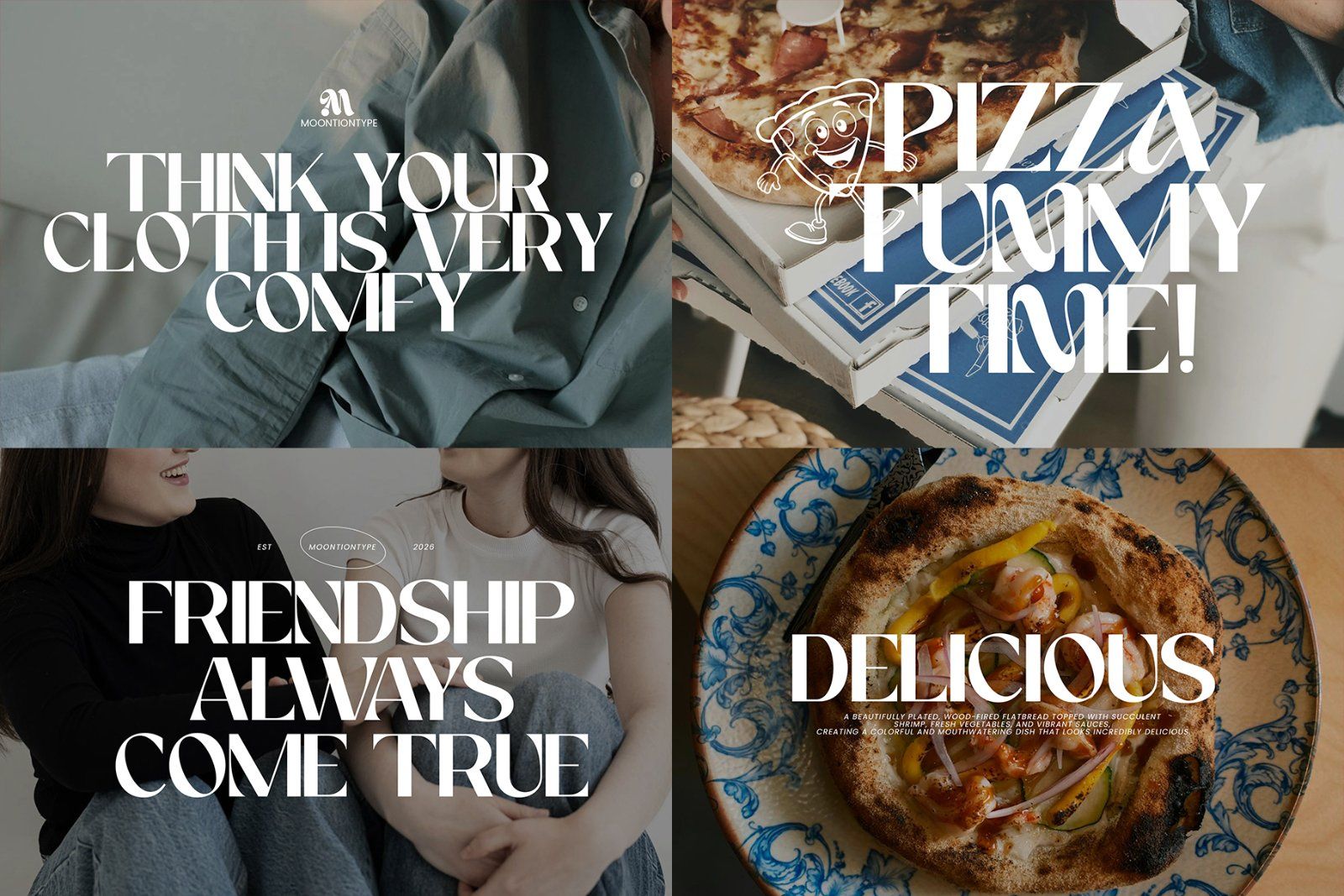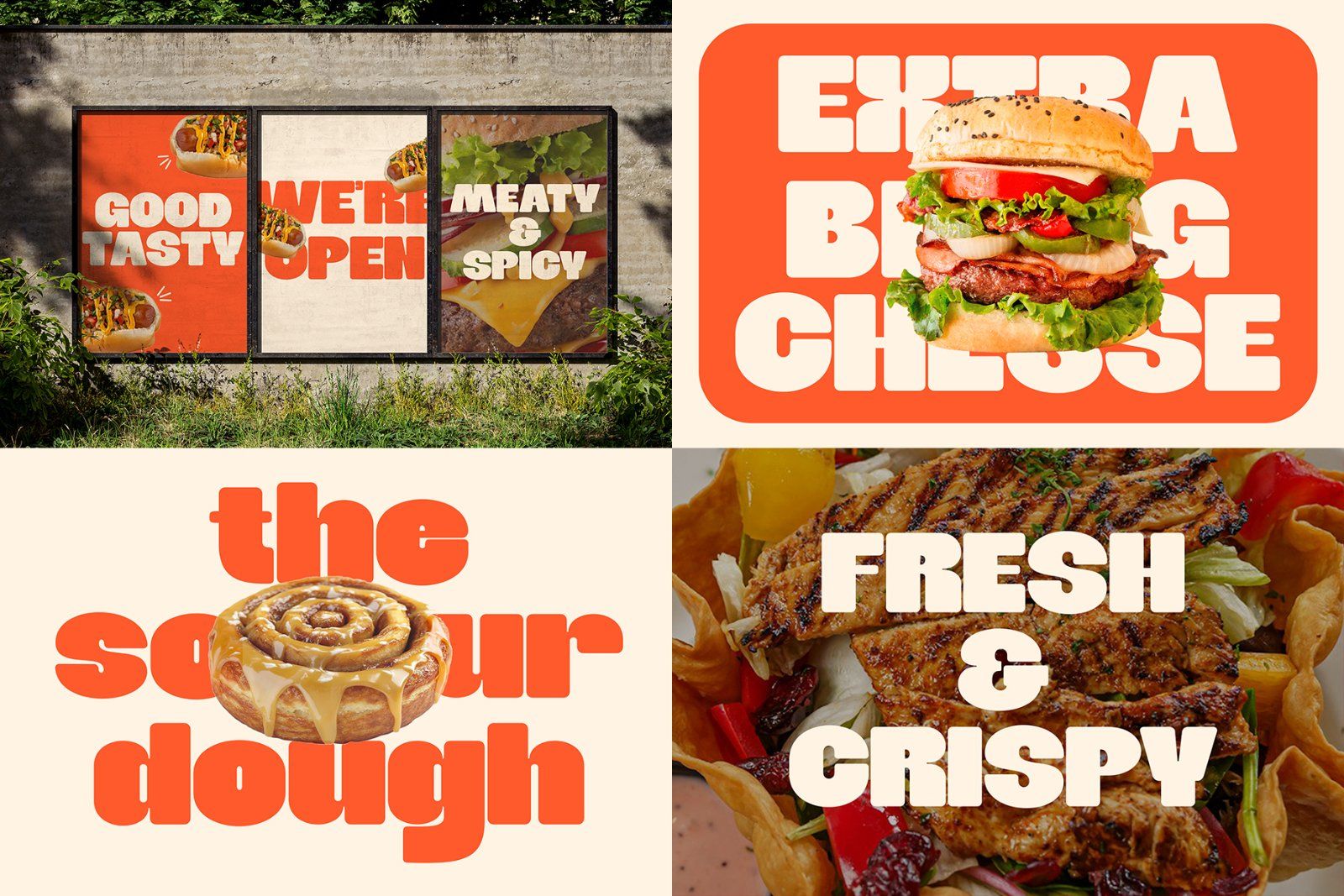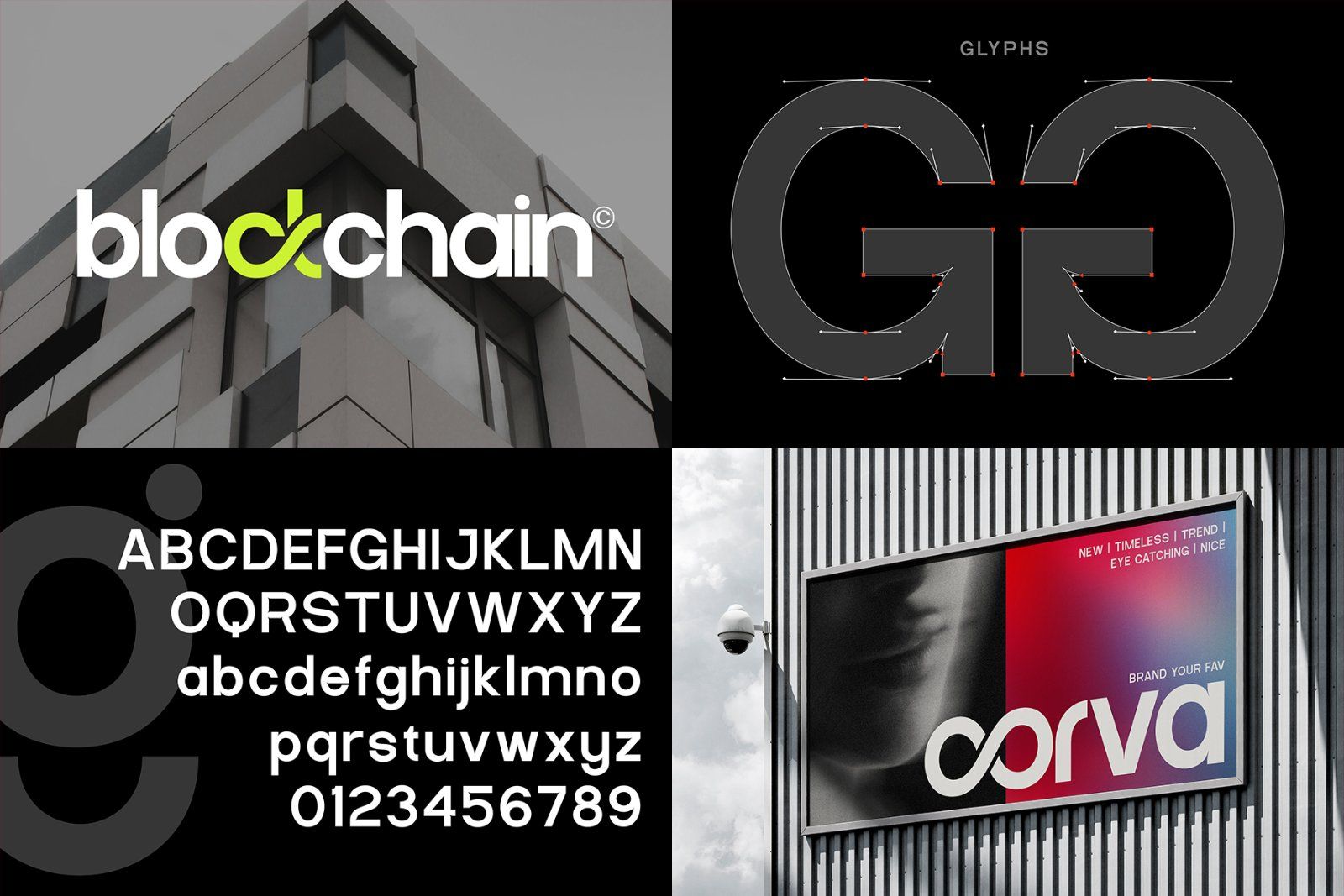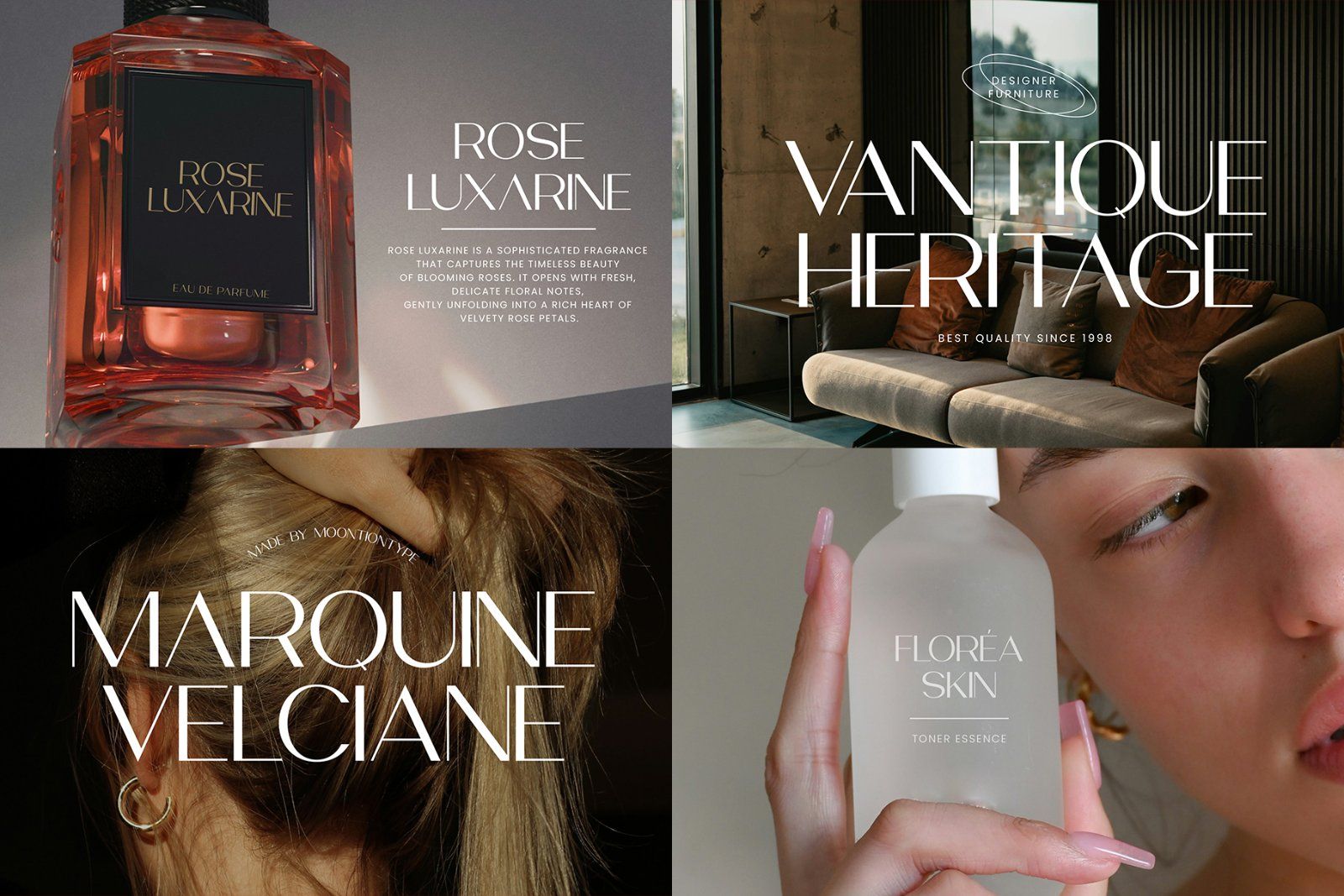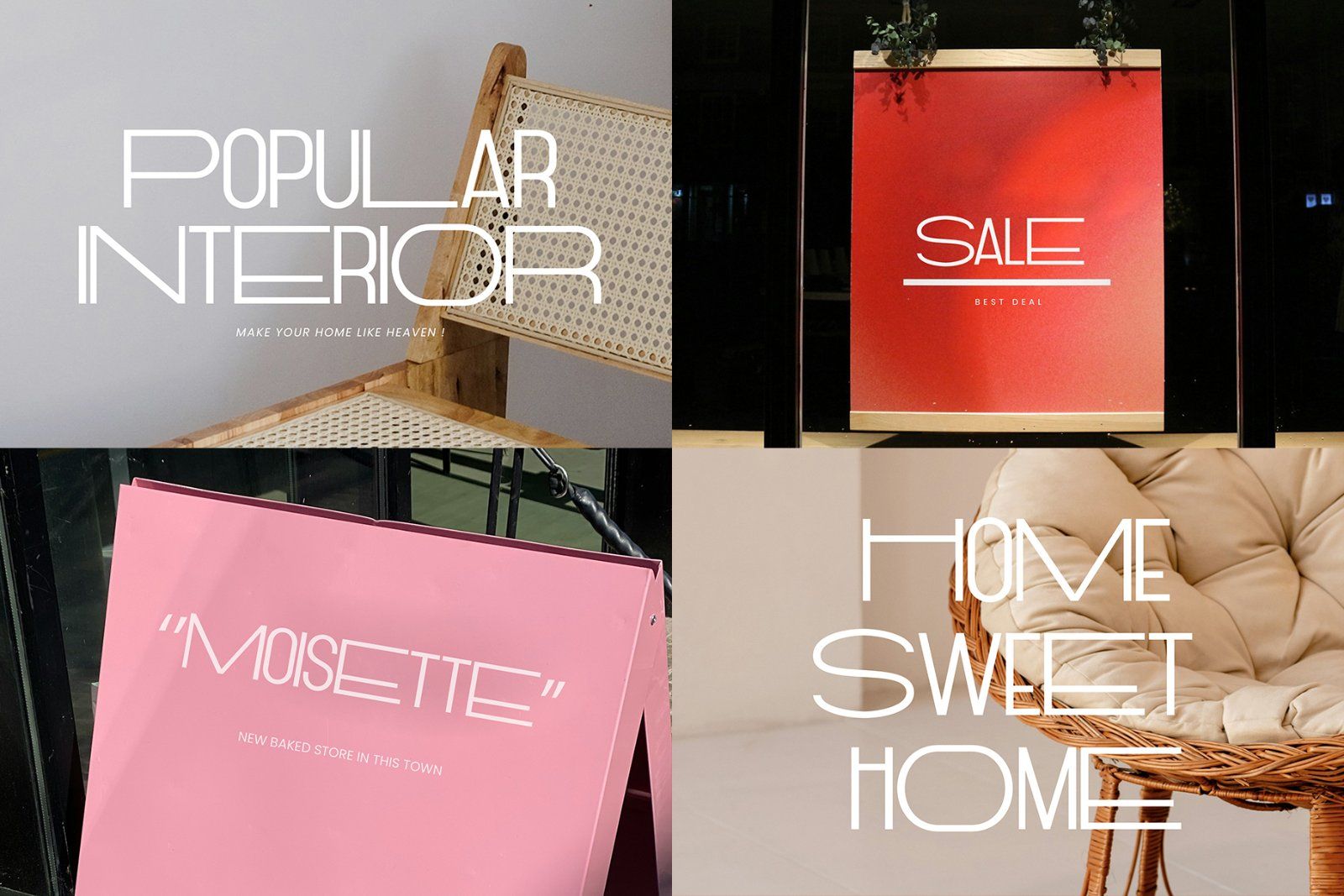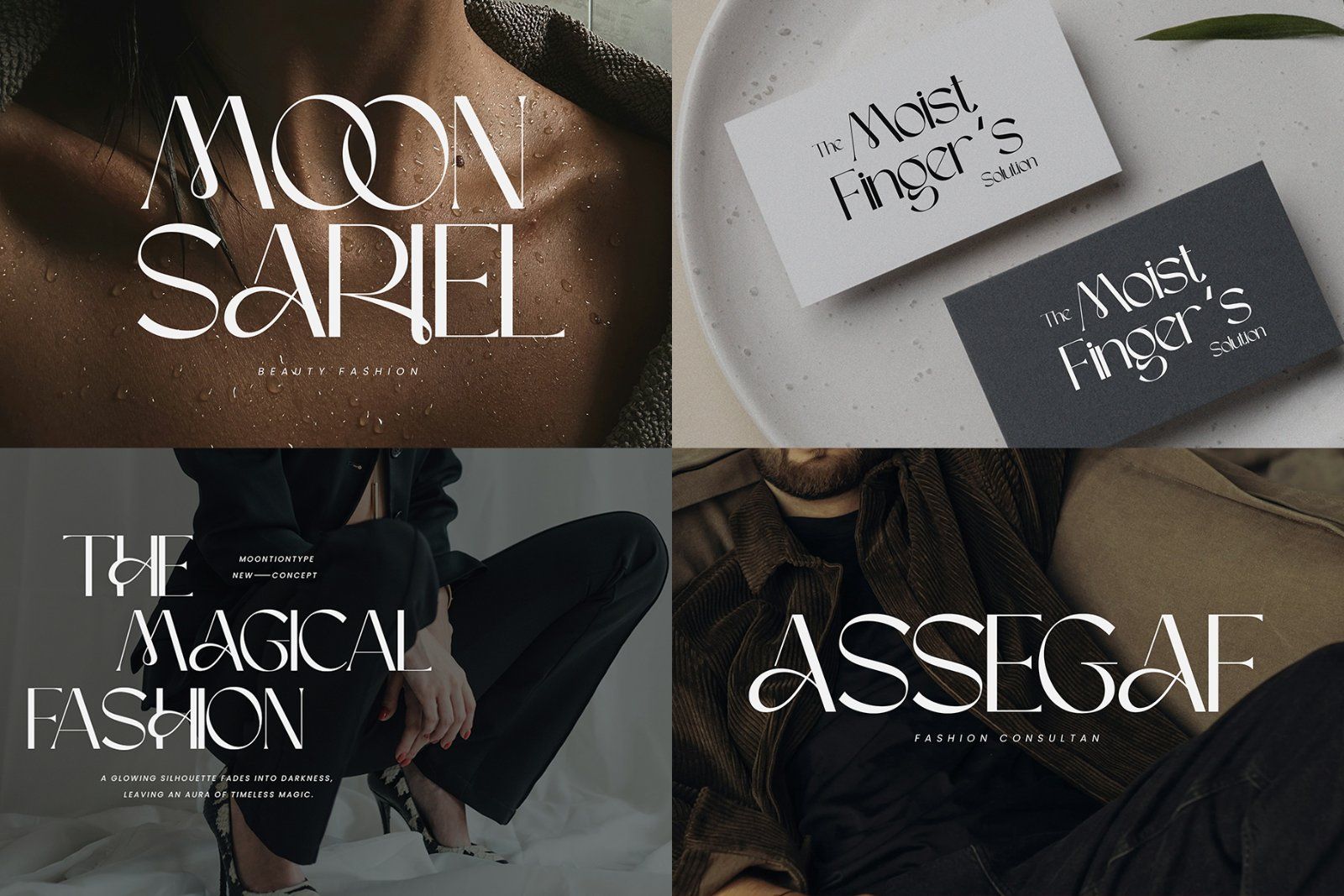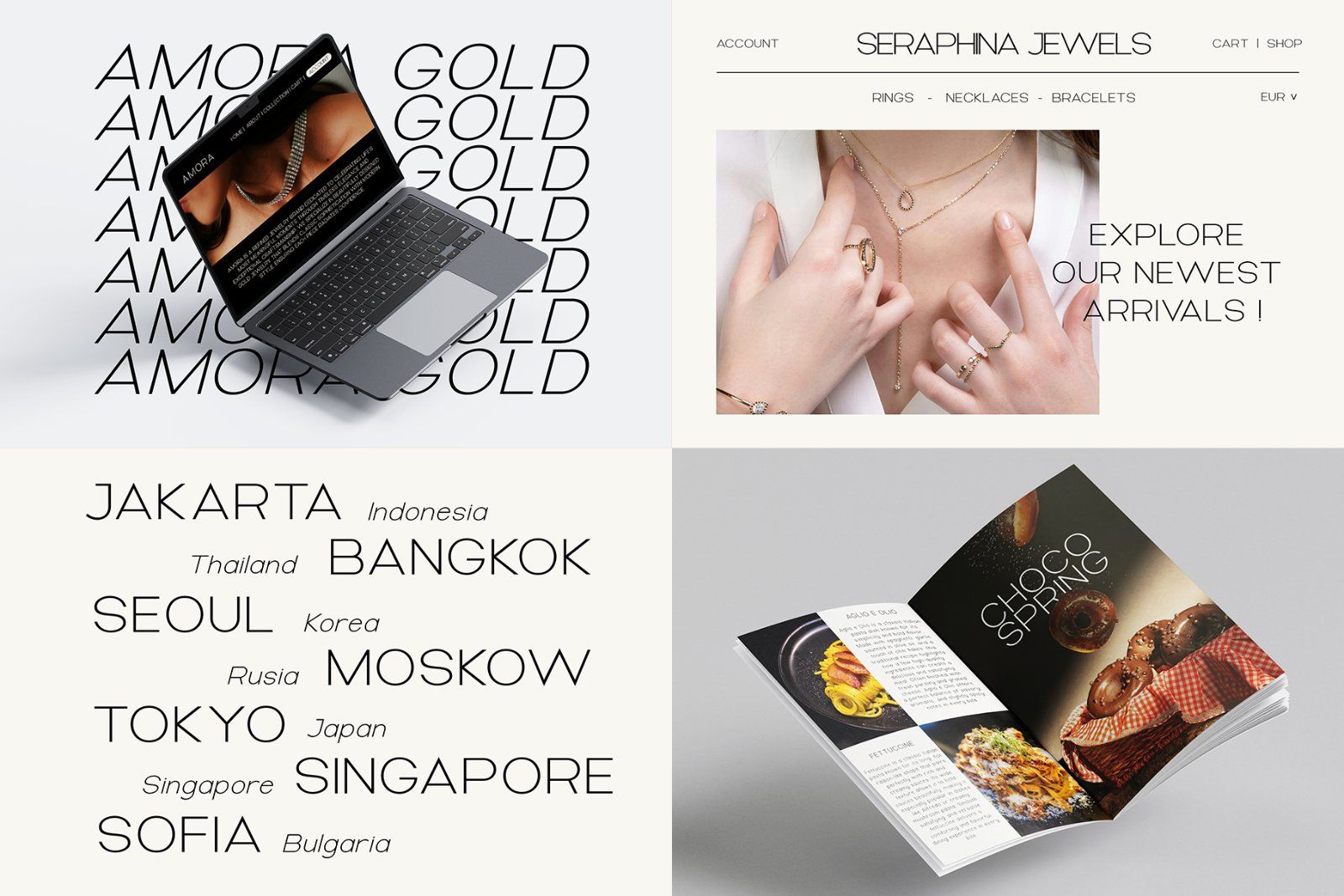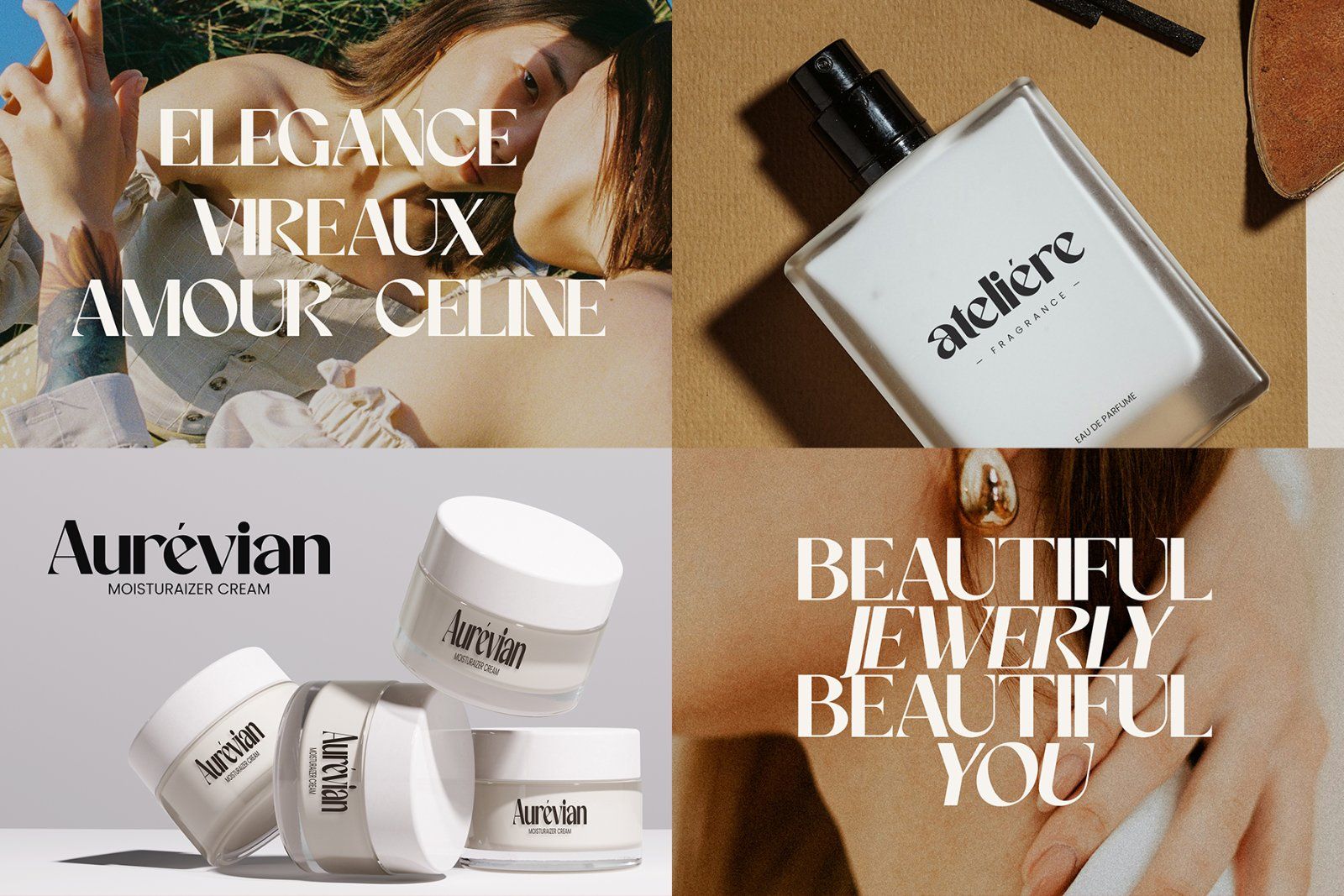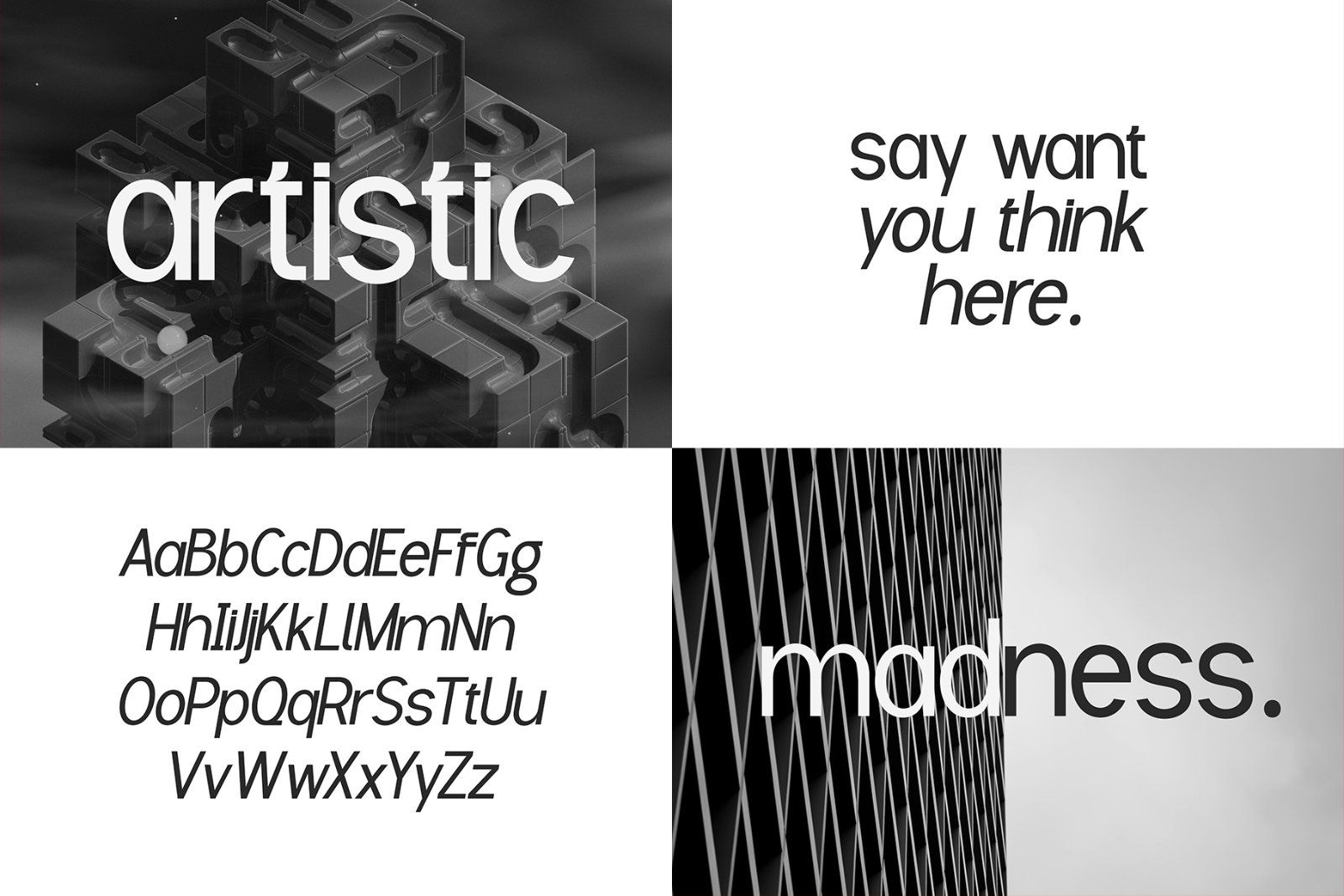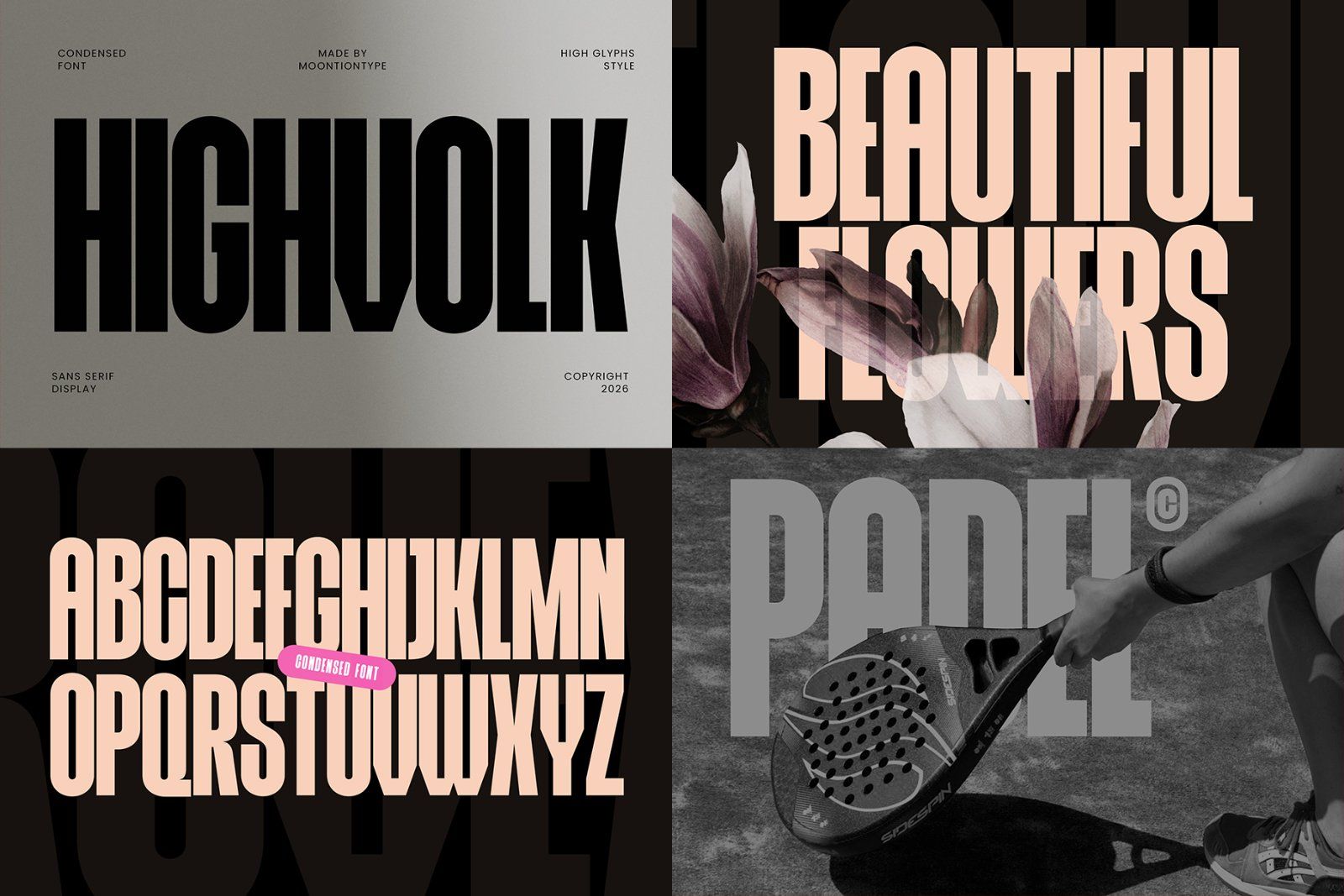
Upgrade your design projects with this stunning Modern Sans Serif Font Bundle, carefully crafted for creators who love clean, elegant, and timeless typography.
This bundle features a versatile collection of minimalist typefaces inspired by luxury branding, editorial layouts, and contemporary design trends. Perfect for creating high-end logos, social media graphics, websites, packaging, and more.
Whether you're building a brand or designing your next creative project, these fonts will give your work a polished and professional look.